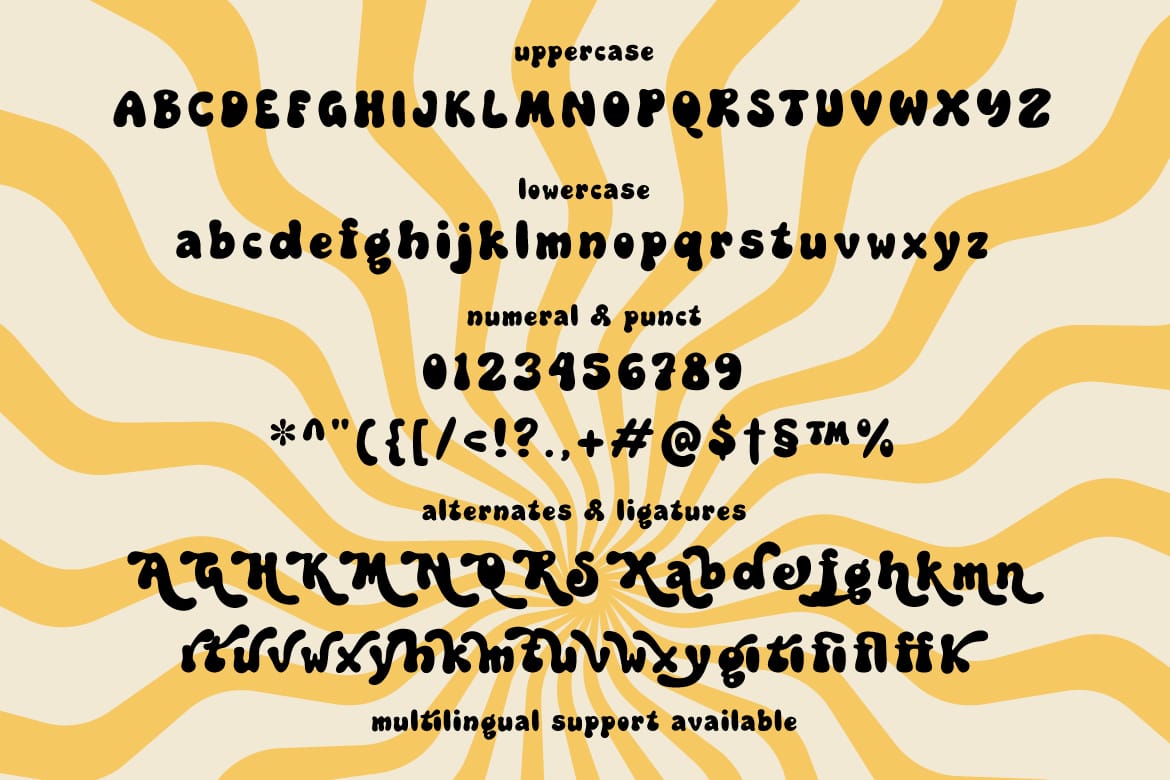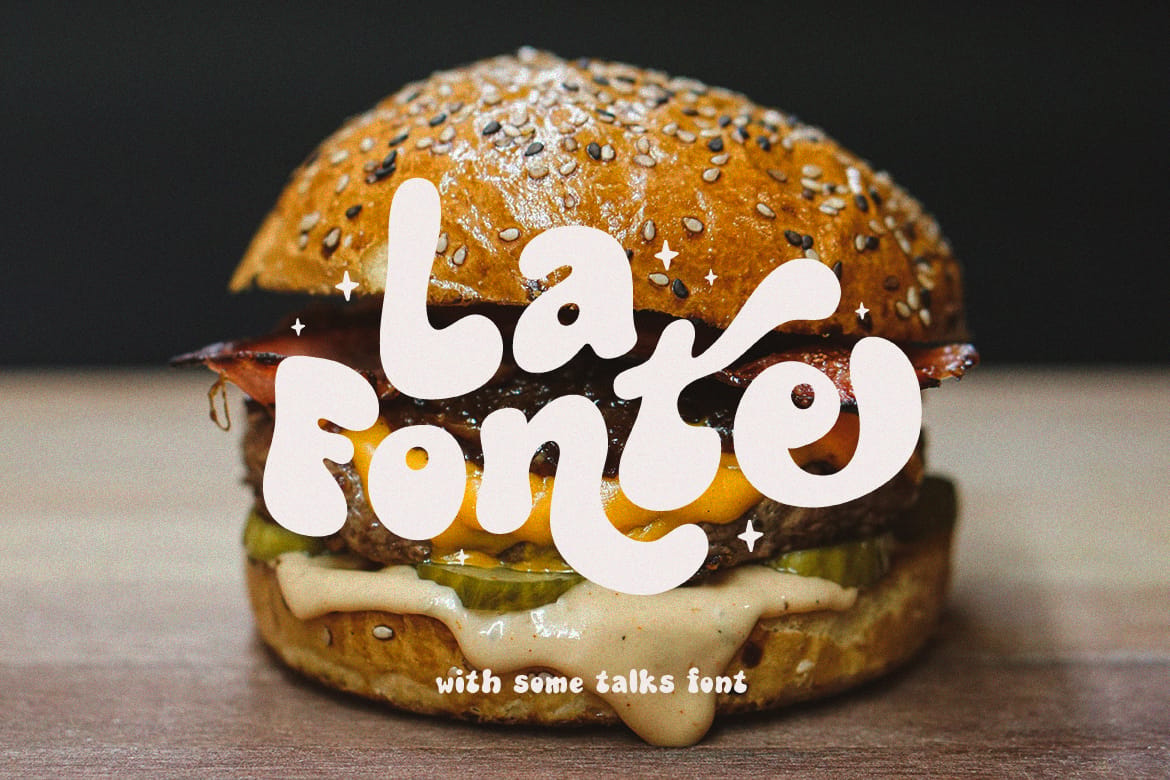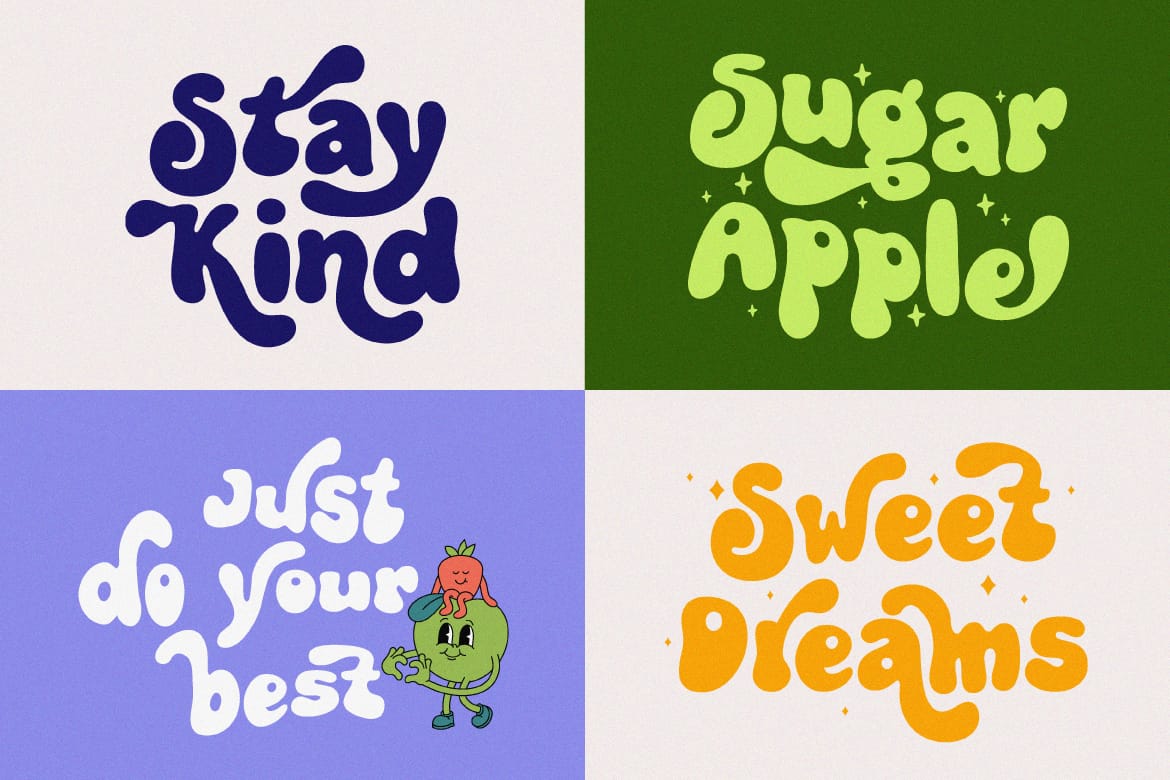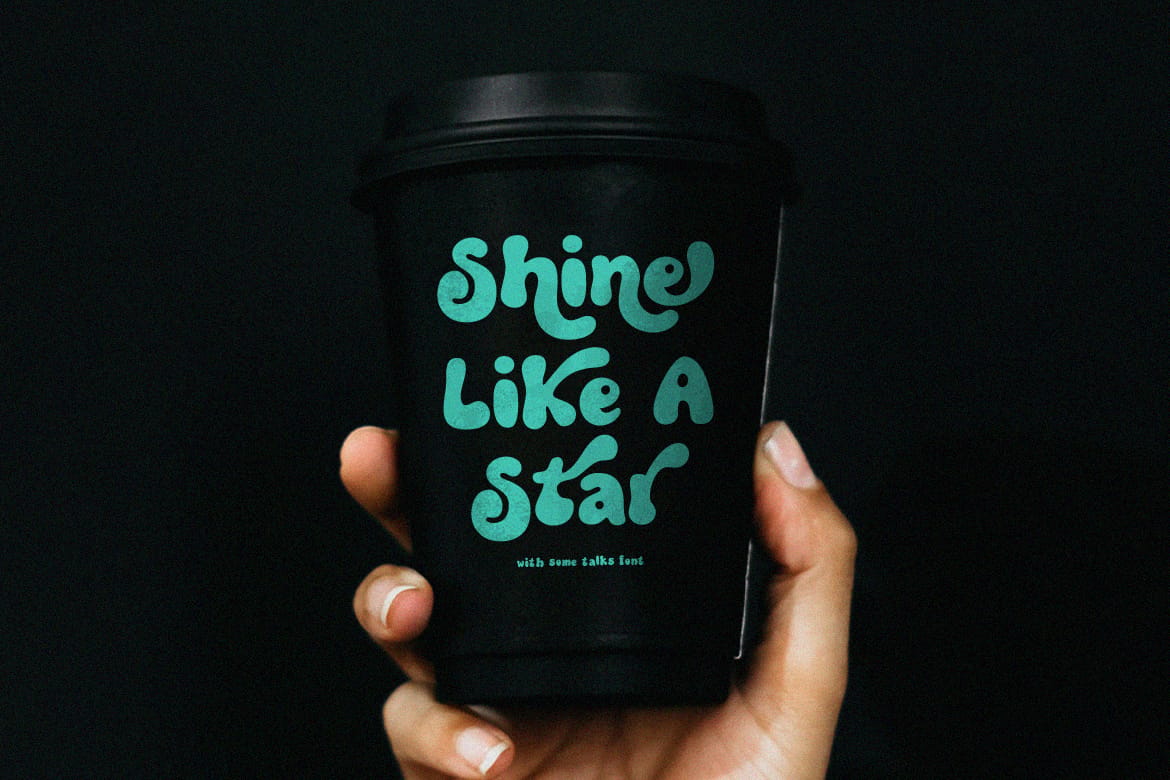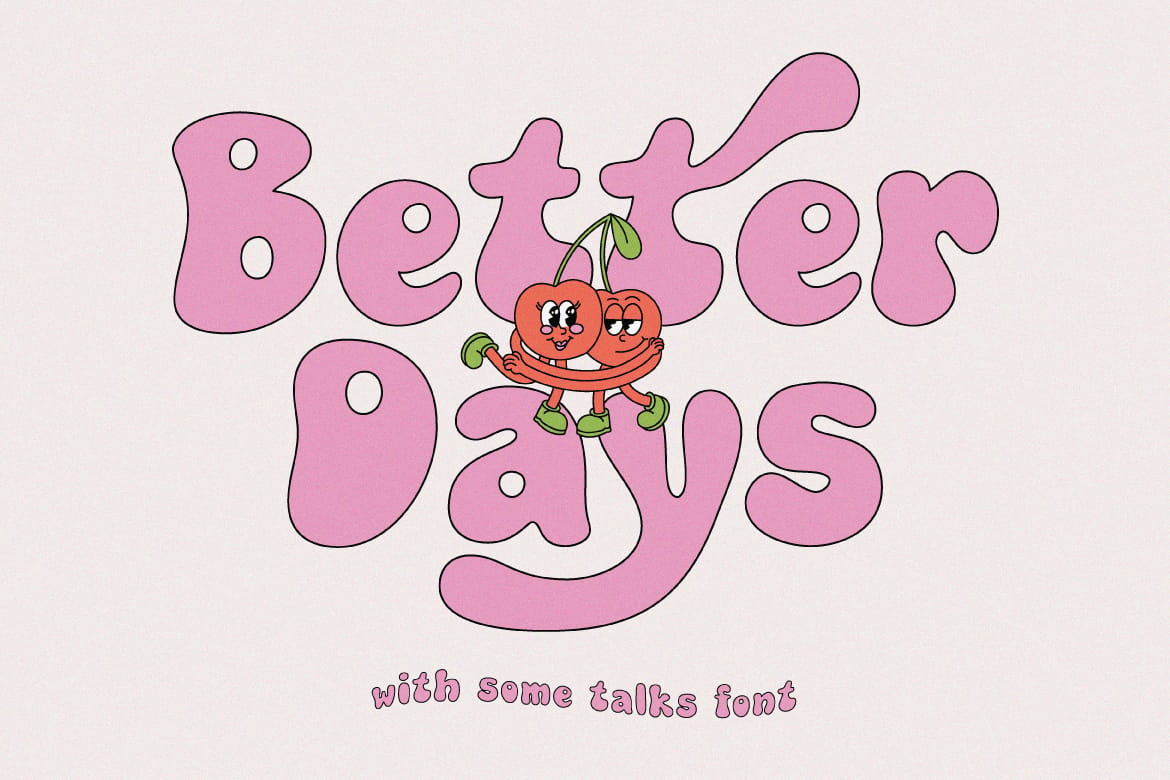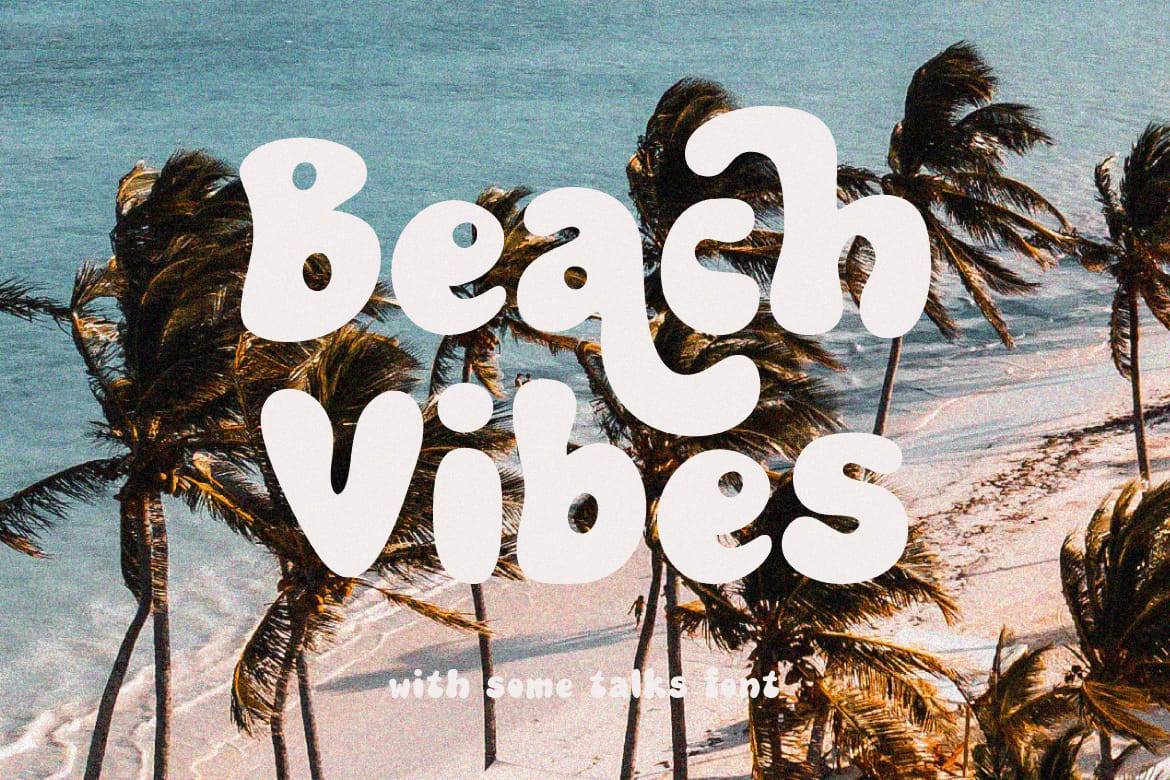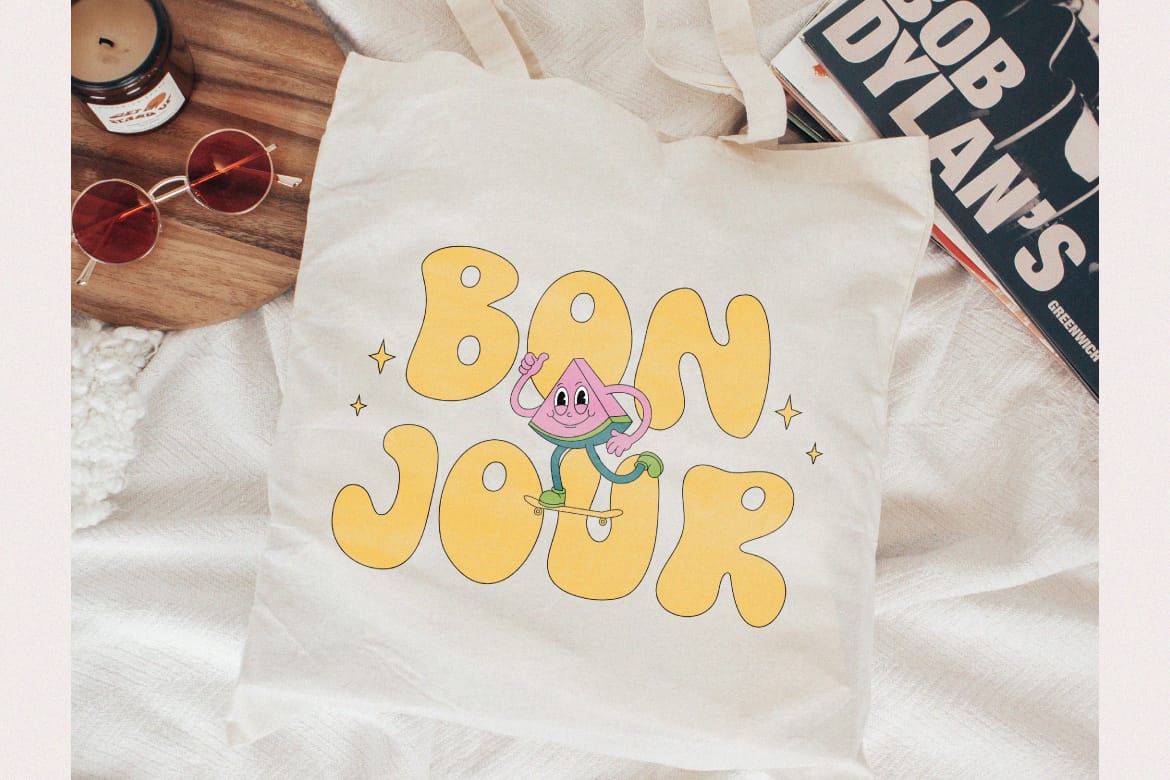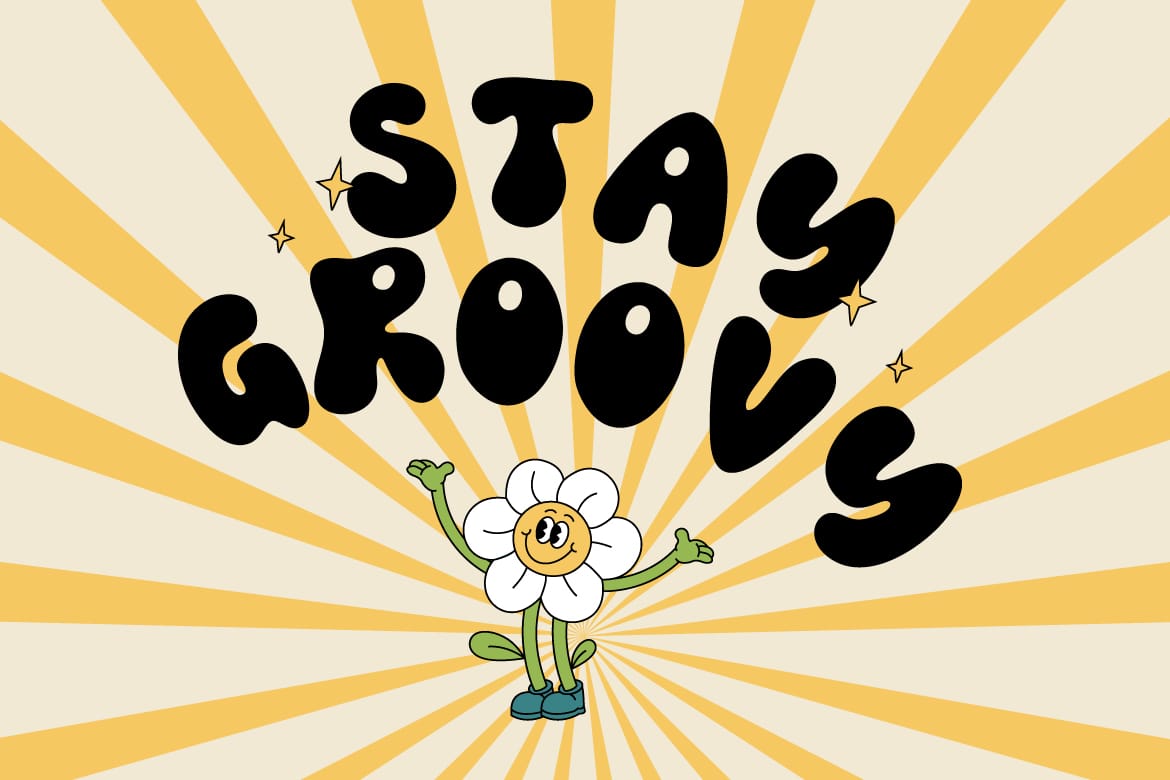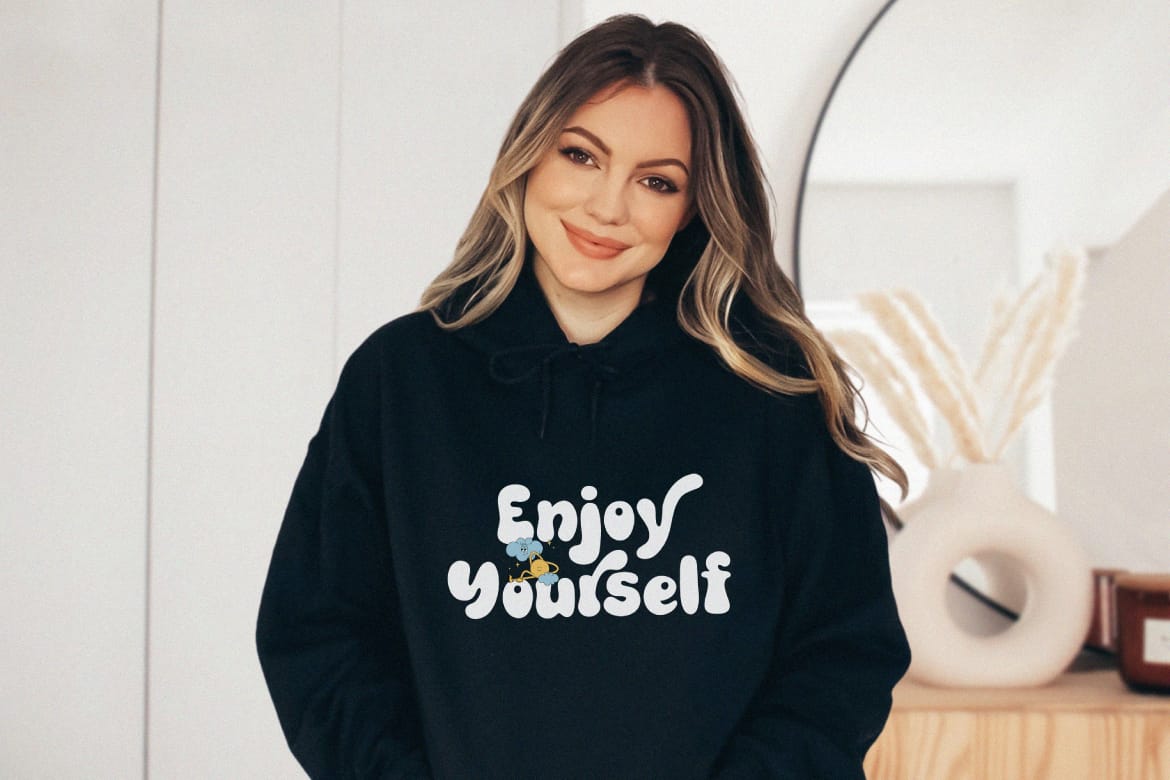
Some Talks - Groovy Display Font.
Introducing a very fun groovy font. Equipped with alternates and ligatures to enrich your exploration. Suitable for branding design, logo, merchandise etc.
Features: Uppercase, Lowercase, Numeral, Punctuation, Multilingual & Ligatures.
Multilingual supported: Afrikaans, Albanian, Basque, Catalan, Danish, Dutch, English, Estonian, Filipino, Finnish, French, German, Indonesian, Irish, Italian, Norwegian, Portuguese, Spanish, Swedish, and many more.